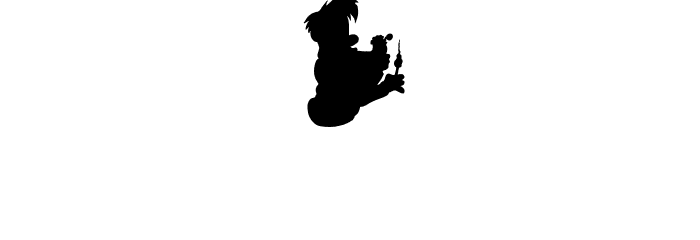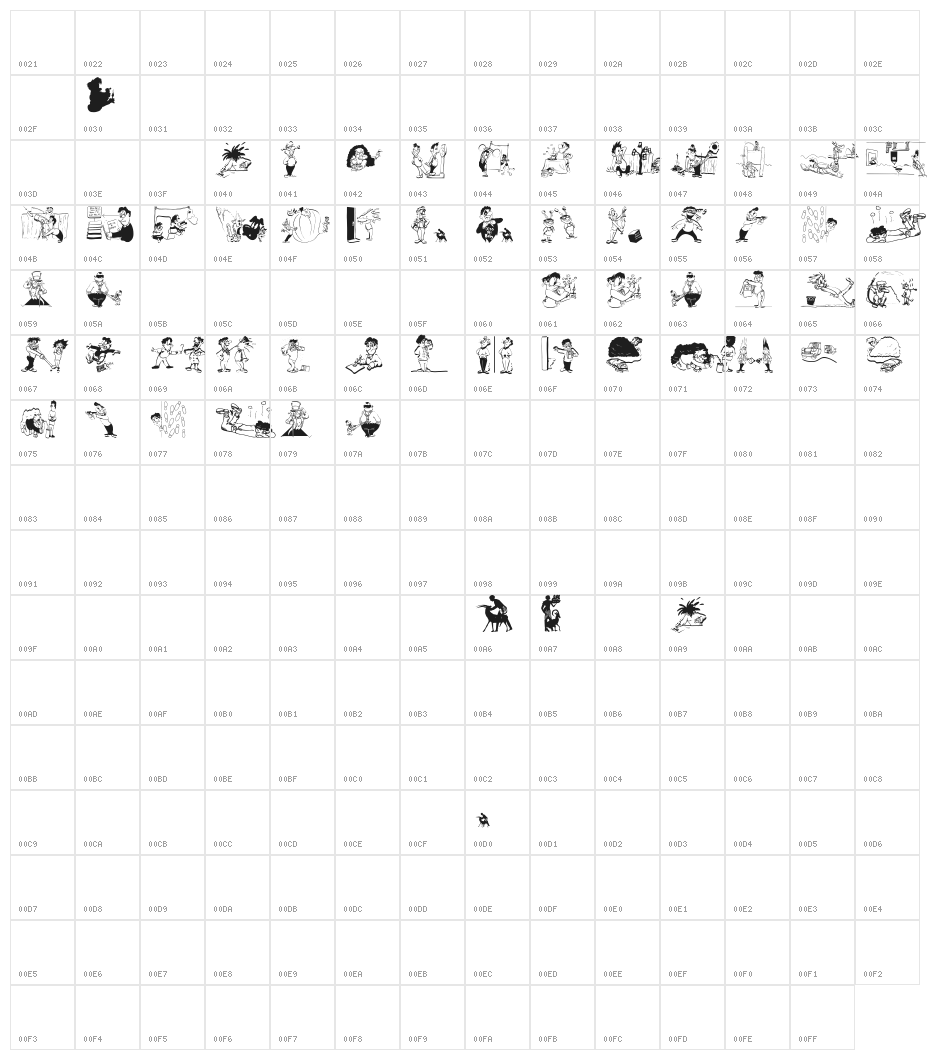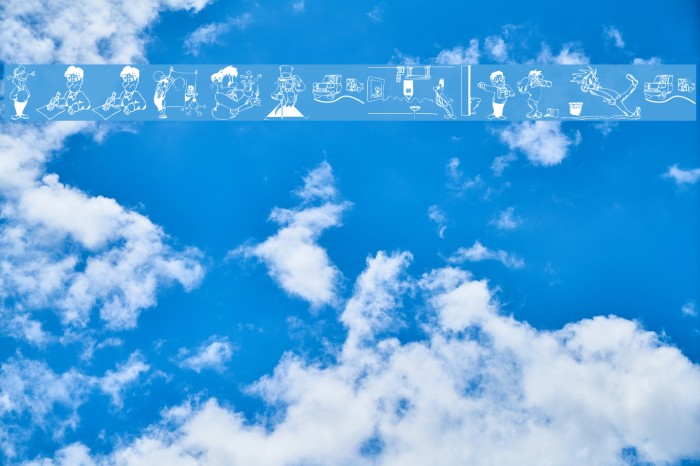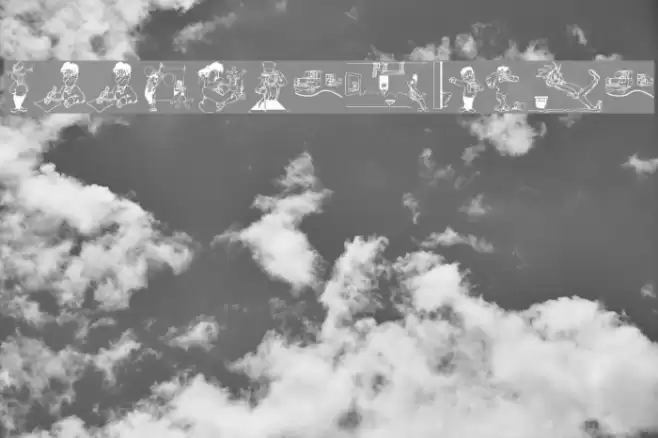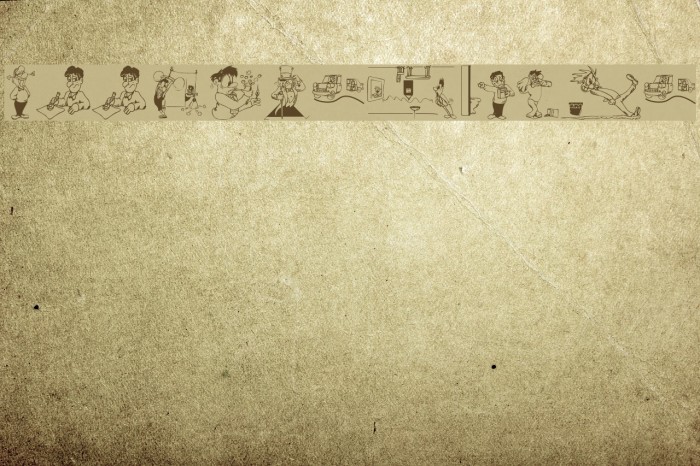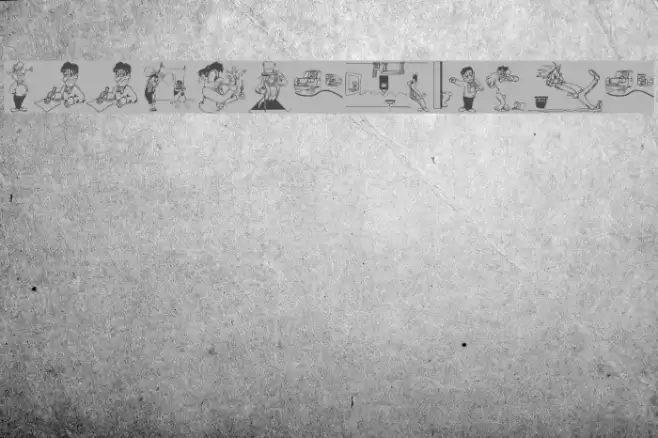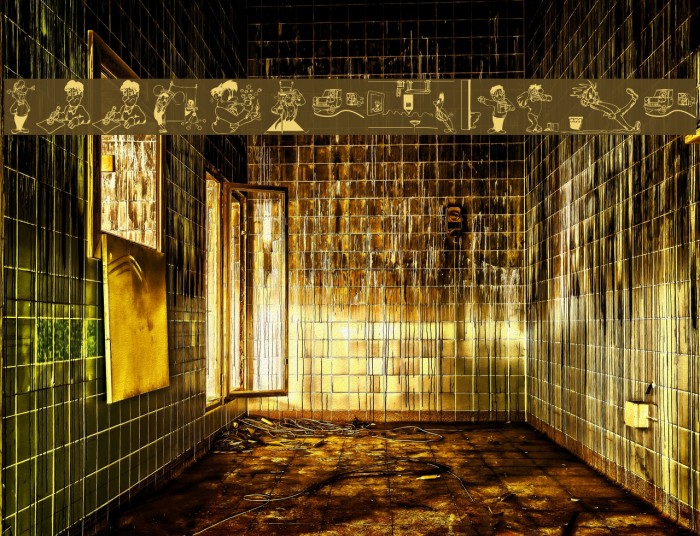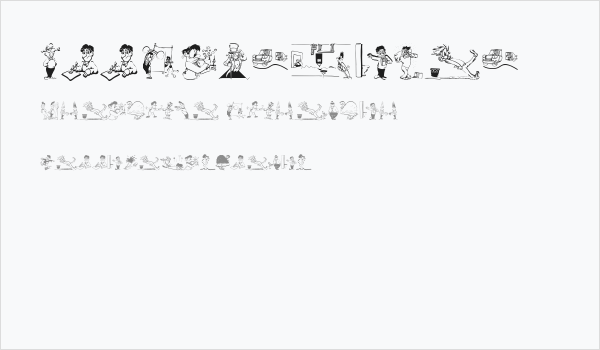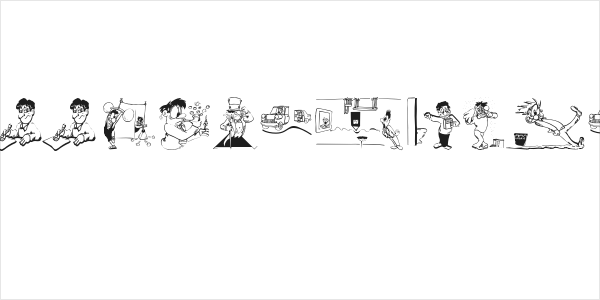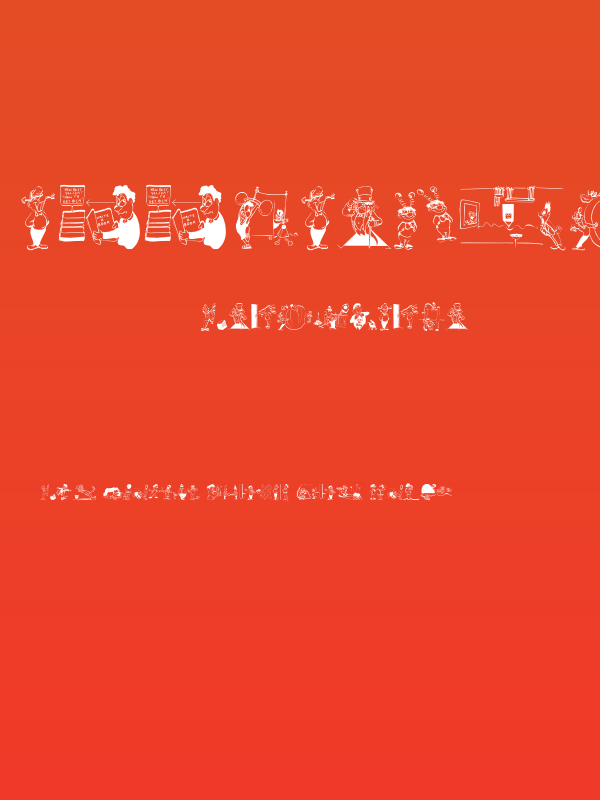
AllDaysJokes Font
AllDaysJokes Description
ALLDAYSJOKES UPPERCASE
ALLDAYSJOKES LOWERCASE
ALLDAYSJOKES OTHER CHARS
| Name | AllDaysJokes |
| Overall Style | Playful, Comic, Decorative |
| Use Case | Headlines, Posters, Themed graphics, ChildrenΓ’β¬β’s content |
| Proposed Projects | ChildrenΓ’β¬β’s books, comic strips, playful posters, party invitations, educational materials. |